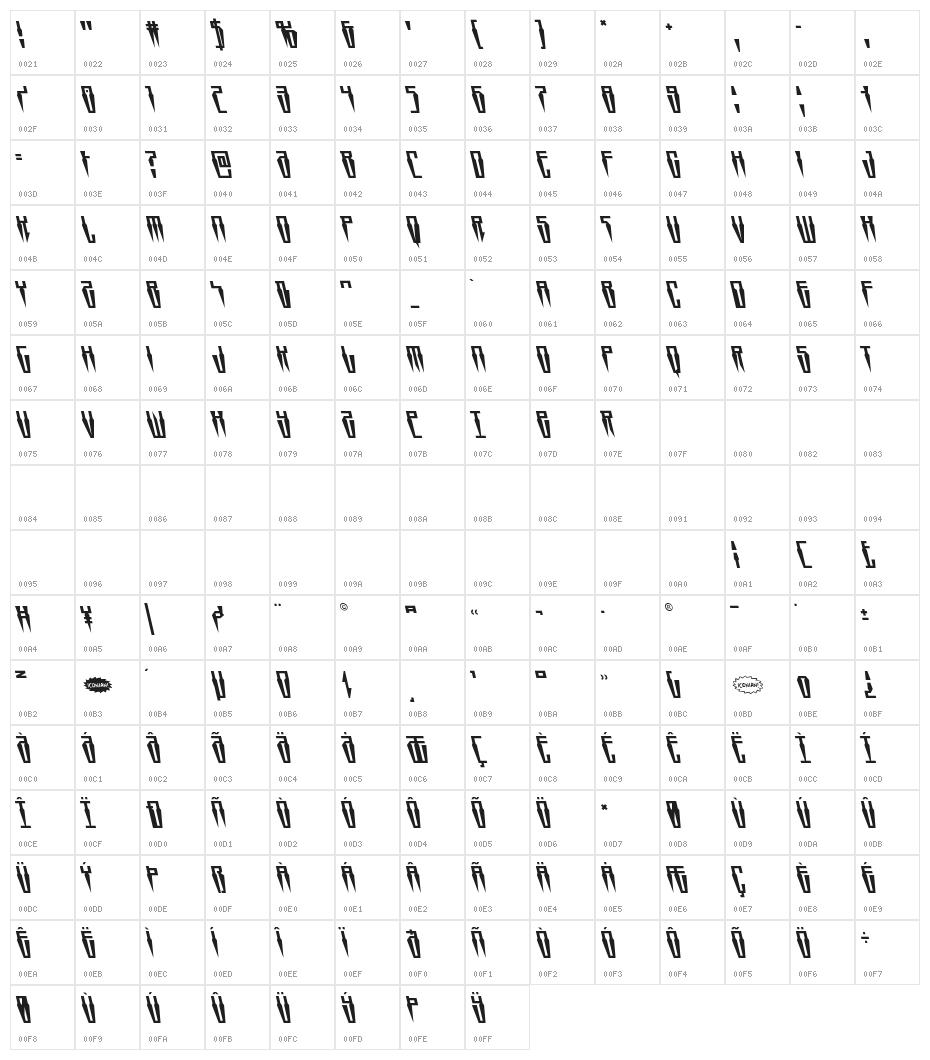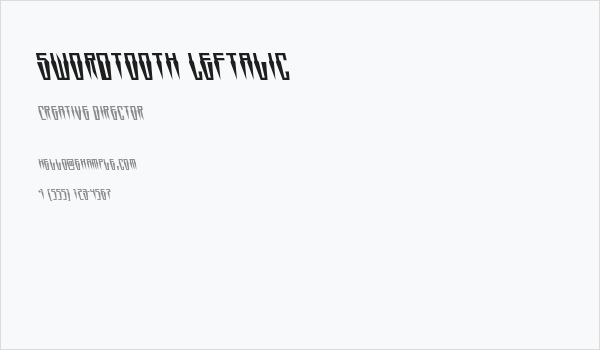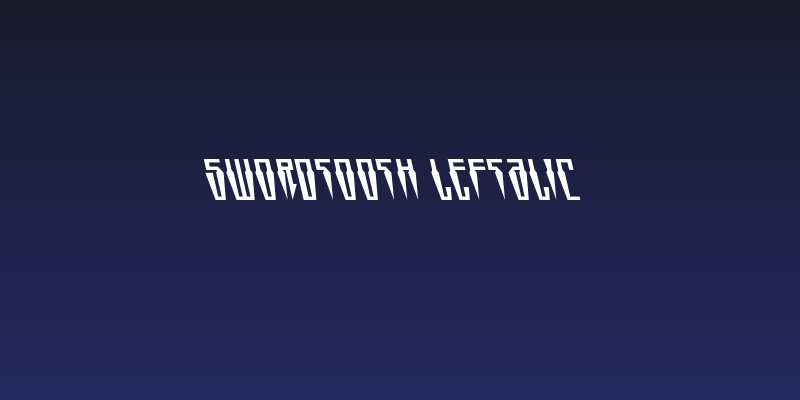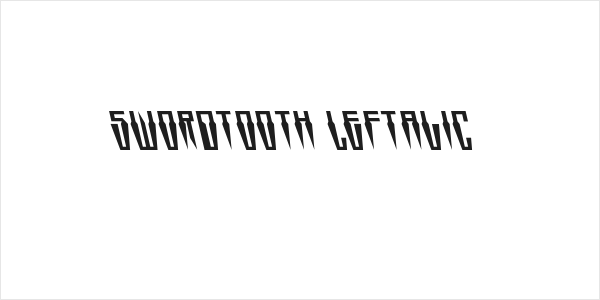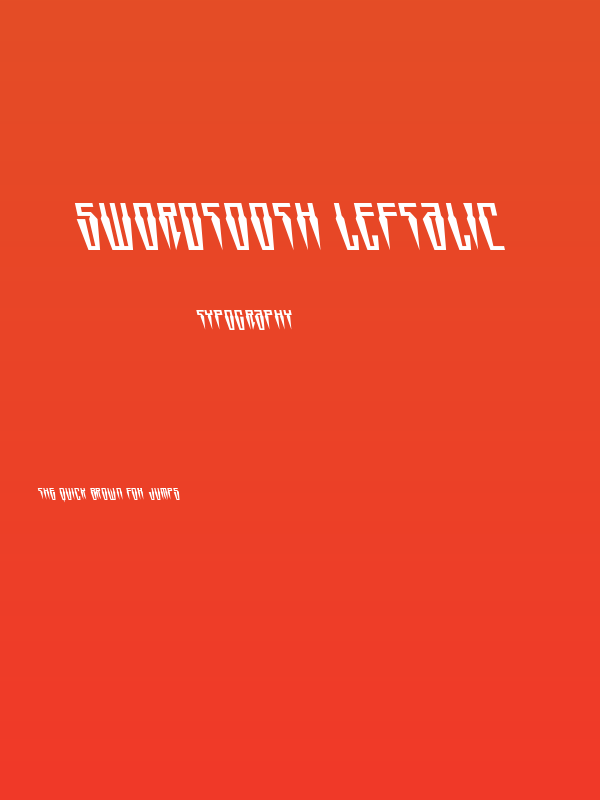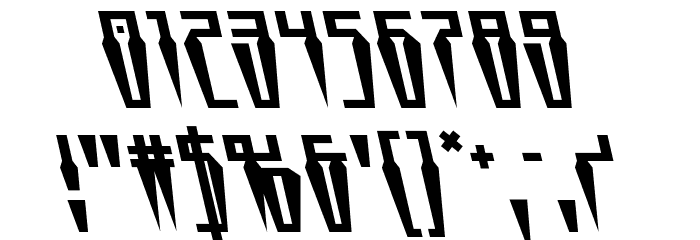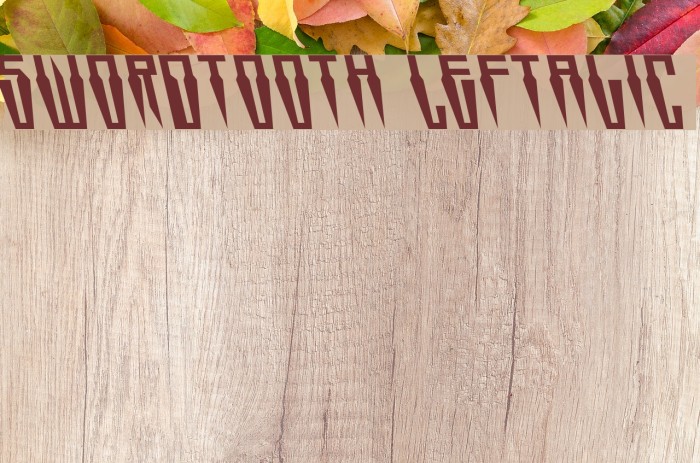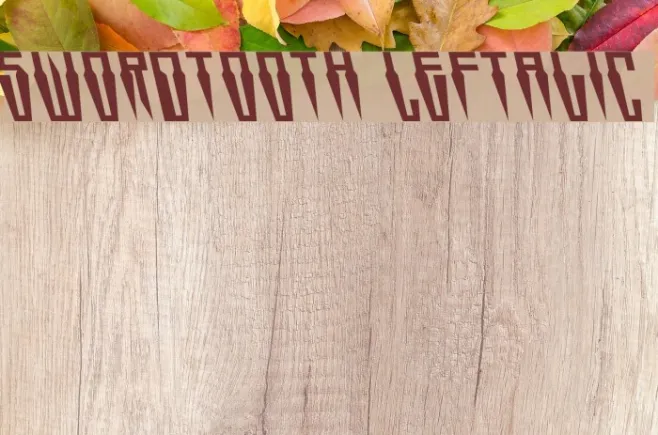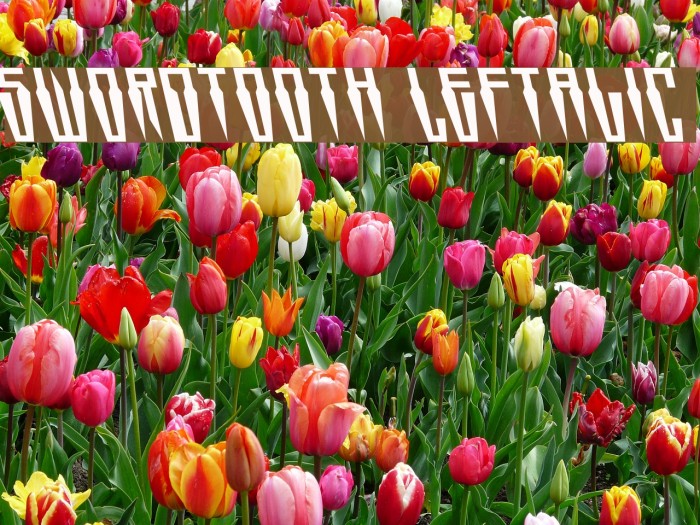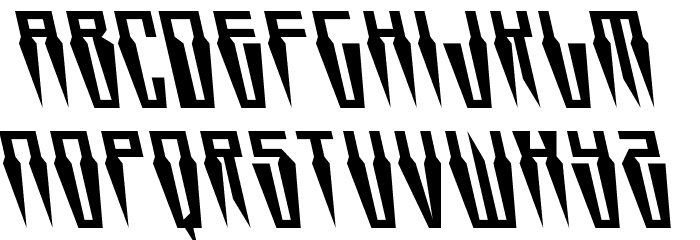
Swordtooth Leftalic Font
Swordtooth Leftalic Description
This font features a striking and aggressive design, characterized by sharp, angular edges and a bold presence. The letters are heavily stylized with elongated points that give a sense of movement and intensity. The uppercase and lowercase letters maintain a consistent style, with each character exhibiting a unique, jagged form that resembles the teeth of a saw or sword. The numbers and special characters follow the same design principles, ensuring a cohesive look across all glyphs. This font's dramatic appearance makes it ideal for attention-grabbing headlines and logos, particularly in contexts that require a sense of power or edginess.
| Proposed Projects | Ideal for use in video game titles, movie posters, or branding for extreme sports. |